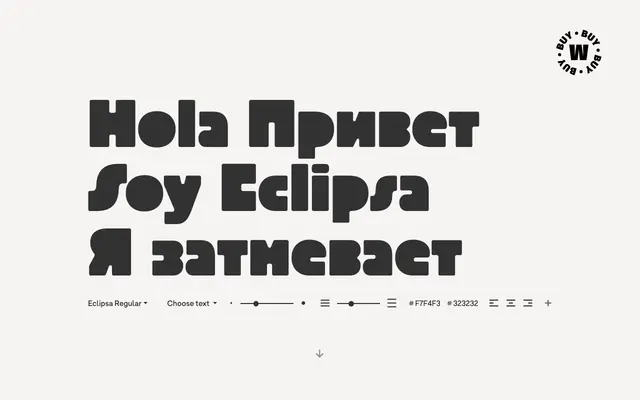
Eclipsa
W Type Foundry · Joaquín Contreras Soto, Diego Aravena Silo
A display typeface drawn from the type of an old workers' newspaper, with rounded corners and partially closed counters that give it a tactile, softened quality.
Eclipsa takes its formal cues from Art Deco, referencing the movement's poster and architectural lettering traditions. The rounded corners and filled-in internal spaces of certain letters lend a physical, almost stamped character that distinguishes it from more clinical revivals of the period. It covers Latin and Cyrillic scripts across 229 languages in a single Regular style of 323 glyphs.
Inspired by type used in an old workers' newspaper and formally associated with Art Deco, it features rounded corners and partially filled counters, placing it firmly in the display category with an art deco subcategory.